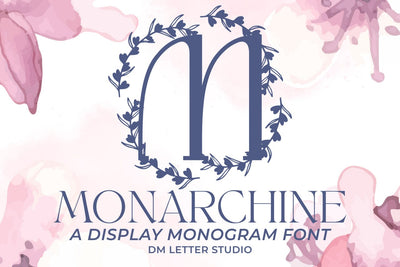
Monarchine Monogram
Meet Monarchine, the Monogram Font
Monarchine Monogram Font turns simple initials into regal emblems with modern clarity. Strokes feel confident and smooth. Counters stay open, so tiny tags, wax seals, and thumbnails read clean. Use it for wedding suites, boutique logos, premium packaging, keepsake gifts, and signage. Moreover, Monarchine pairs beautifully with refined serifs and quiet humanist sans fonts, so your layouts feel elegant without extra effort.
Where this monogram font shines
Set single, double, or triple initials for logos, seals, menus, and place cards. Then frame them with laurel rings, oval borders, fine rules, or filigree to echo the poised geometry. Since proportions favor symmetry, centered compositions come together in minutes. As a result, listings look consistent across invitations, boxes, tags, and acrylic signs. Plus, Monarchine scales smoothly from jewelry cards to entry signage.
Design tips for Monarchine Monogram
Keep initials large and let white space breathe. Then, pair the headline monogram with a soft serif for body text or a clean sans for labels. Add micro shadows, a fine inner stroke, or a delicate frame to create depth. Because the letterforms feel airy, textured stocks and metallic accents raise perceived value. However, keep wording short so the monogram remains the hero.
Select stylistic alternates for key letters
Curves tuned for foil, letterpress, engraving, laser, and clean vinyl cutting
Why creators choose this monogram font
You want elegance that reads at a glance and sells. Monarchine delivers. It grabs attention in thumbnails, speeds layout, and keeps brand voice cohesive from invites to packaging and gifts.